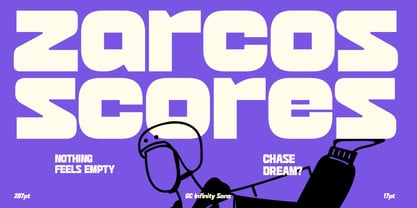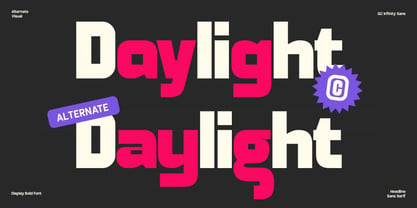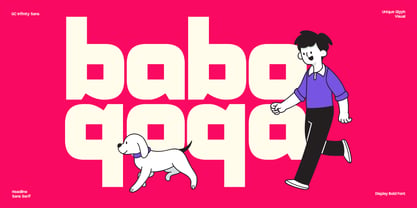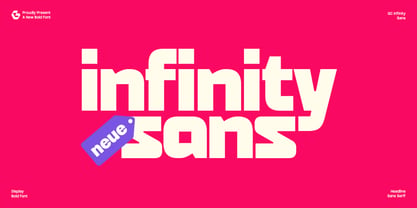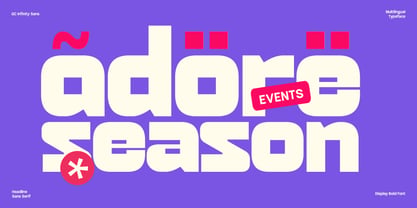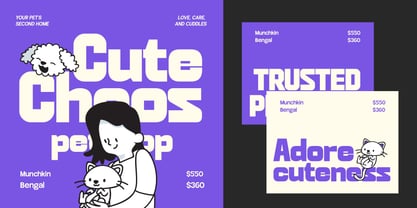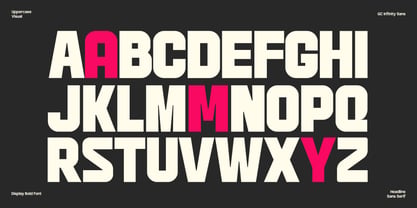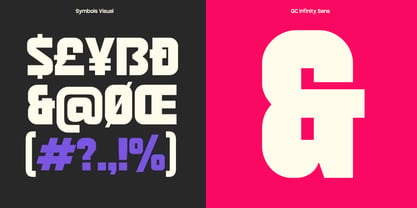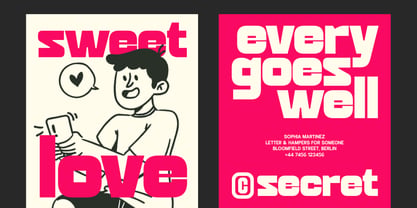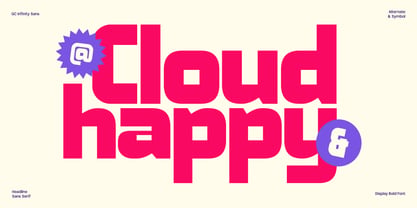
GC infinity sans
The GC infinity sans Font Family was designed by Muhammad Hafiizh Solana and published by Onyx Studio. GC infinity sans contains 1 styles. More about this family
GC Infinity is a bold display sans-serif font that combines striking modernism with a strong geometric structure. Designed to command attention, it blends boldness and clarity, making it ideal for impactful headlines, statement branding, logo design, editorial titles, and bold packaging.
With its thick, solid letterforms, minimal contrast, and clean curves, GC Infinity delivers a sense of power and simplicity in one unified design. The characters are carefully spaced and constructed to give a sense of balance and visual strength—perfect for tech, sports, urban, and fashion-related visuals.
Features:
• Uppercase & Lowercase
• Ligatures & Stylistic Alternates
• Numbers & Punctuation
• Multilingual Support
Make your design bold, modern, and unforgettable with GC Infinity.